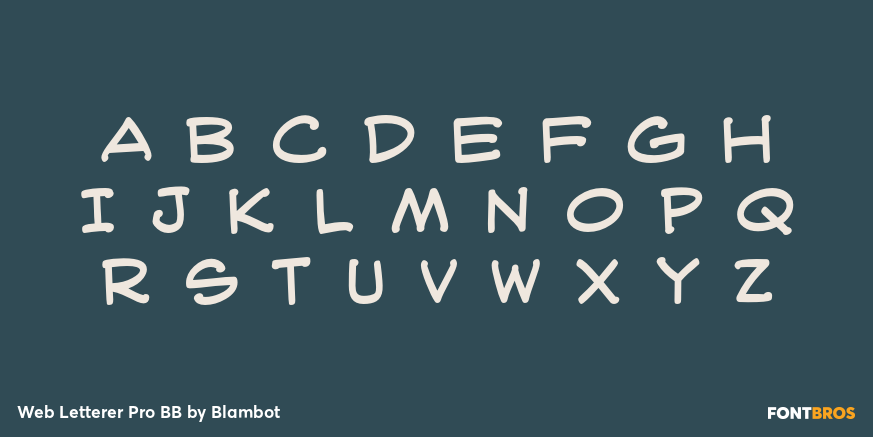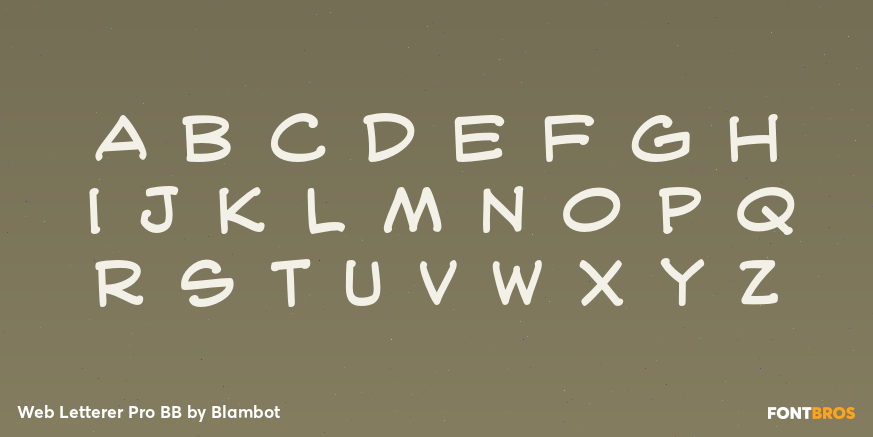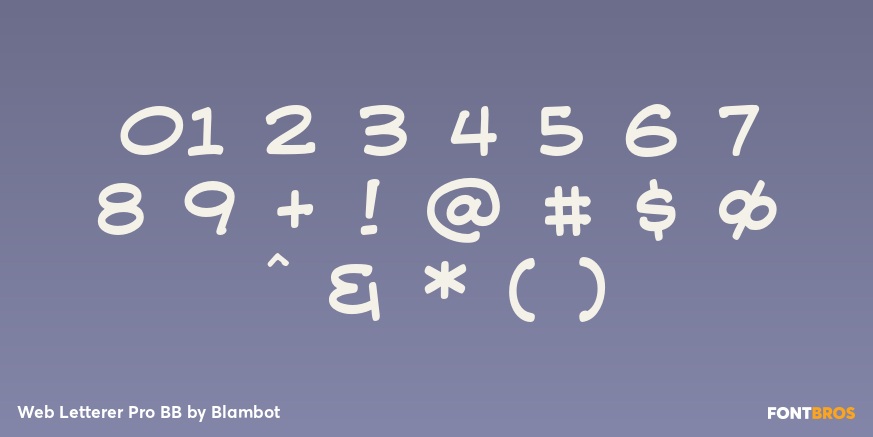
Web Letterer Pro BB
Font Family by Blambot
Designed specially for legibility on-screen for web comics, but just as handy in print comics!
Includes Regular, Italic and Bold with European characters.